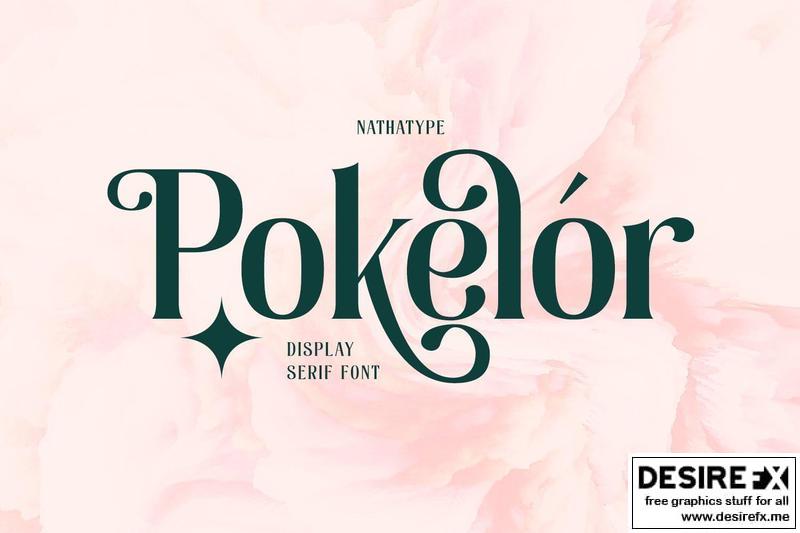
Pokelor is a display serif font beautifully designed with harmony between function and beauty showing you elegant, modern yet less formal impressions. The little hooks’ continuity elements help the eyes to keep flowing from one letter to another. With wide spaces and easily noticeable letters, this font is truly legible with which you can apply for any text sizes. Furthermore, enjoy the interesting features available in this font.
Pokelor fits best for various design projects, such as posters, banners, logos, magazine covers, quotes, headings, printed products, invitations, name cards, merchandise, social media, etc. Find out more ways to use this font by taking a look at the font preview.